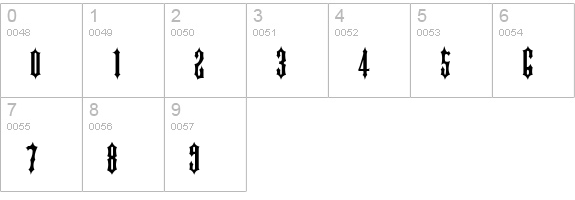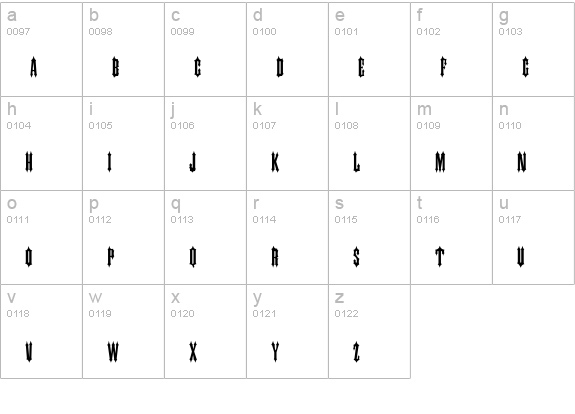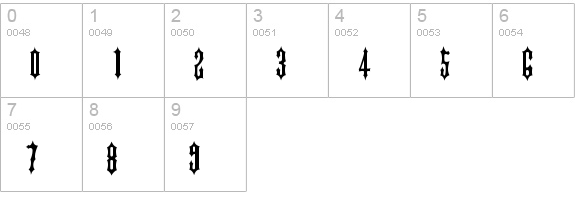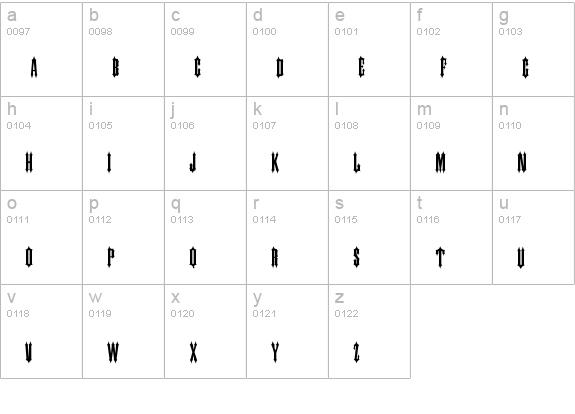
Introducing IRONGATE, a captivating and versatile font that effortlessly combines elegance with a touch of edginess. With its bold and dramatic letterforms, IRONGATE is sure to make a statement in any design project. Crafted with meticulous attention to detail, this font showcases a unique blend of sharp angles and smooth curves, lending it a modern and futuristic feel. Each character exudes a sense of strength and sophistication, making IRONGATE perfect for branding, logos, headlines, and more. What makes IRONGATE even more remarkable is that it is available for free download at FontsMarket.com. Yes, that's right, this stunning font can be yours without any cost. Whether you are a professional designer or a creative hobbyist, IRONGATE opens up a world of possibilities, allowing you to enhance your creations with its remarkable presence. With its extensive character set, including uppercase and lowercase letters, numbers, punctuation marks, and special symbols, IRONGATE ensures flexibility and compatibility across various design applications. Its clean lines and precise geometry guarantee legibility at any size, making it ideal for both print and digital projects. So why wait? Unleash your creativity and bring your designs to life with IRONGATE. Download this extraordinary font now, for free, at FontsMarket.com and embark on a design journey that will leave a lasting impression.